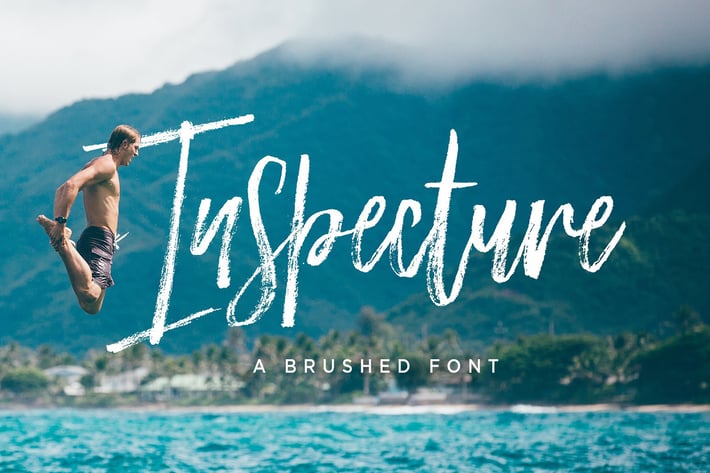
Inspecture Brush Font
A new font brushed textured with Perfect,also equipped with extra swashes. Perfect for brand projects, logos, product packaging, posters, invitations, greeting cards, news, blogs, everything including personal charm.